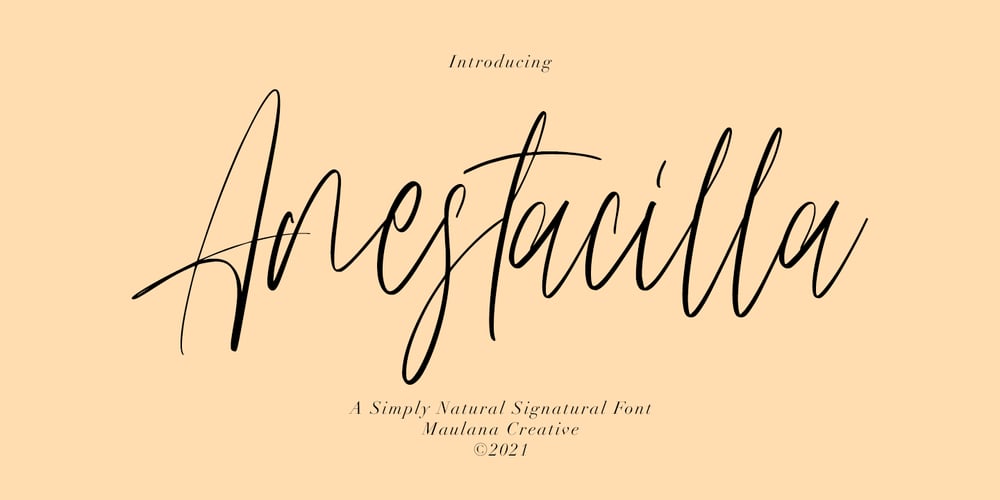
Anestacilla
Anestacilla font
Anestacilla Font Family was designed by Gilang Maulana and published by Maulana Creative. Anestacilla contains 1 styles and family package options. Anestacilla is girly signature font, with clean thin contrast stroke, slanted, condensed and fun character. It has Opentype features ligatures of character, To give you an extra creative work. Anestacilla font support multilingual more than 100+ language. This font is good for logo design, Social media, Movie Titles, Books Titles, a short text even a long text letter and good for your secondary text font with sans or serif. Make a stunning work with Anestacilla font.